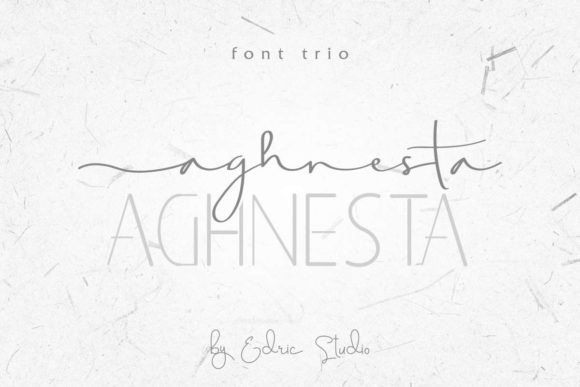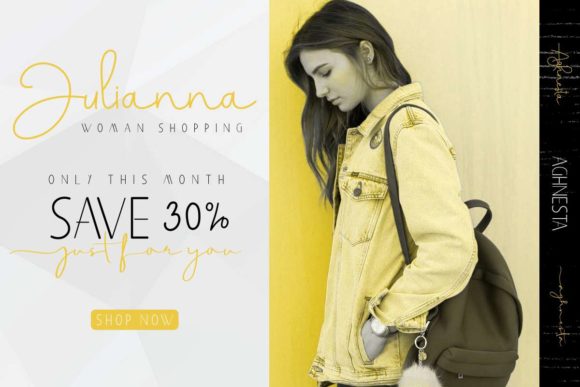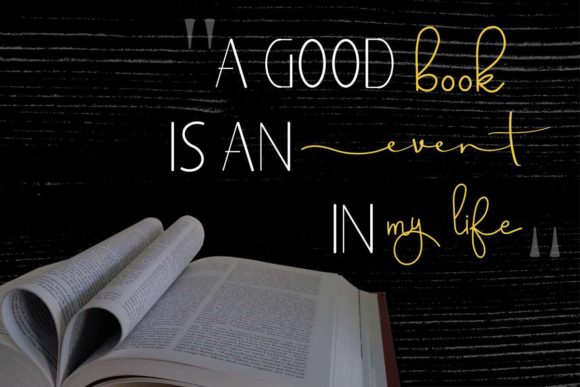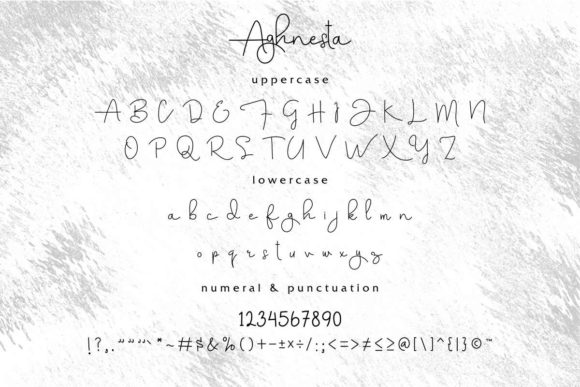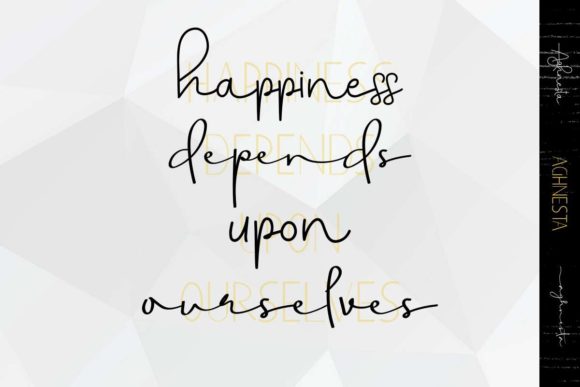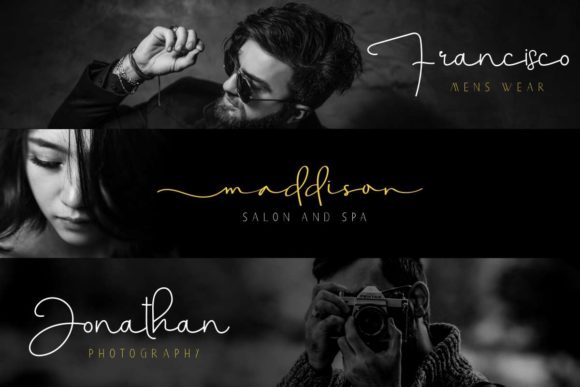
Introduction to Aghnesta Trio Font
Aghnesta combines three unique fonts into one truly gorgeous Duo.
Combine the script, signature and sans serif font to achieve outstanding results .